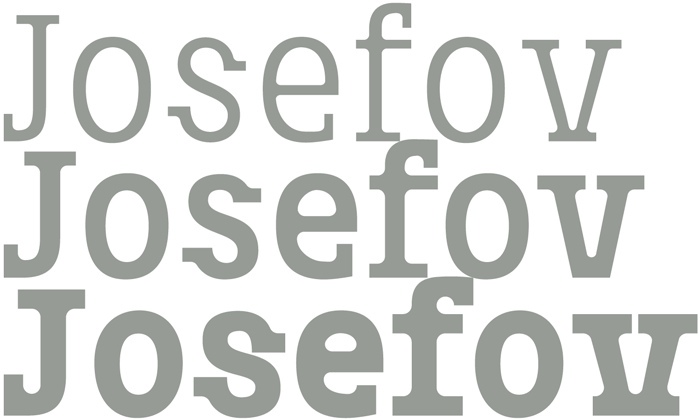
Josefov Font
Josefov Font is perfect for European heritage branding, Prague tourism marketing, historic quarter signage, Jewish cultural center communications, old town restaurant menus, cultural heritage displays, historical preservation campaigns, and authentic Central European promotions.
What makes Josefov Font exciting is its historic authenticity that embodies the cultural richness and architectural beauty of European old quarters with Prague sophistication and heritage dignity. The font features traditional letterforms with old-world proportions and cultural character that evoke cobblestone streets, historic synagogues, and the enduring legacy of Central European Jewish heritage and Prague's architectural magnificence. Its distinctive historic styling and cultural appeal communicate heritage, authenticity, and cultural preservation, making every message feel blessed by centuries of history and touched by the dignified beauty of European cultural tradition and historic neighborhood character.
The Josefov Font family includes regular weight with uppercase and lowercase letters, numerals, punctuation marks, and special characters. Premium versions often feature historic alternates and cultural elements that enhance the traditional, heritage aesthetic perfect for cultural and tourism applications.
This distinguished heritage typeface brings instant authenticity and cultural credibility to any historic quarter project. Josefov Font Free Download delivers exceptional results for cultural institutions and heritage tourism organizations seeking to communicate European tradition, Jewish heritage, and historic authenticity to cultural tourists and heritage enthusiasts.
The cultural character of Josefov Font makes it particularly valuable for Jewish cultural centers, Prague tourism operators, and European heritage organizations. Its excellent readability ensures cultural messaging and heritage communications remain clear while maintaining the distinctive historic aesthetic that appeals to visitors seeking authentic European experiences and Jewish cultural heritage.
Cultural heritage marketers appreciate how Josefov Font effortlessly conveys historic authenticity and cultural dignity. The font's traditional proportions and heritage details create prestigious educational materials that establish connections with audiences who value European history, Jewish culture, and the architectural beauty of historic Prague quarters and Central European cultural tradition.
The versatile heritage of this typeface extends to cultural education, heritage preservation, and Jewish community organizations where historic authenticity enhances cultural credibility and heritage appeal. Josefov Font Free Download provides creative professionals with an essential tool for developing memorable, heritage-driven designs that resonate with audiences who embrace European culture, Jewish heritage, and the dignified beauty of historic neighborhoods in their cultural and educational experiences.